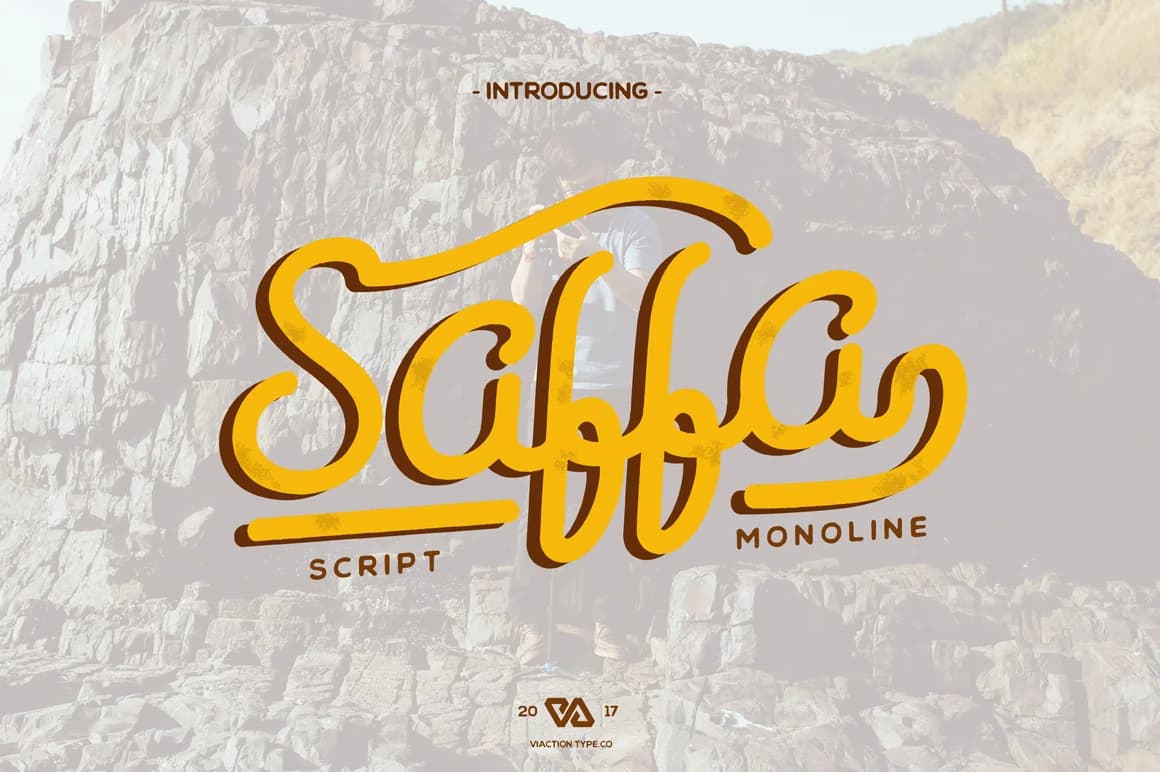
Saffa by Viaction Type.Co is a refined monoline script with an authentic handwritten character that merges contemporary design sensibilities with timeless elegance. The font carries the genuine warmth of original penmanship while maintaining the consistency and precision required for professional applications across diverse media.
This versatile script shines in numerous creative contexts. Wedding invitation suites benefit significantly from its graceful flow and intimate presence, creating a sense of personal connection on the page. Food and beverage branding, from artisanal jam labels to boutique coffee packaging, gains an authentic handmade quality when rendered in Saffa. The font also excels for personal stationery and greeting card designs, where its genuine handwritten voice adds memorability to correspondence. Social media graphics and event signage further showcase Saffa's ability to convey warmth and personality while maintaining excellent legibility at varying scales and applications.
The monoline construction creates a clean, consistent appearance that translates beautifully across both digital and print mediums without losing character. Whether you're developing a cohesive brand identity, designing invitation suites for special occasions, creating packaging for artisanal products, or building handcrafted social media content, Saffa offers the hand-lettered charm and authenticity that modern audiences appreciate. Get Saffa on Creative Fabrica and bring this distinctive script to your next creative endeavor.
Saffa Font is a script font that shines as a display or heading face. Pair it with a clean sans-serif or serif font for body text — the contrast creates a clear hierarchy while the two styles stay balanced and easy to read.